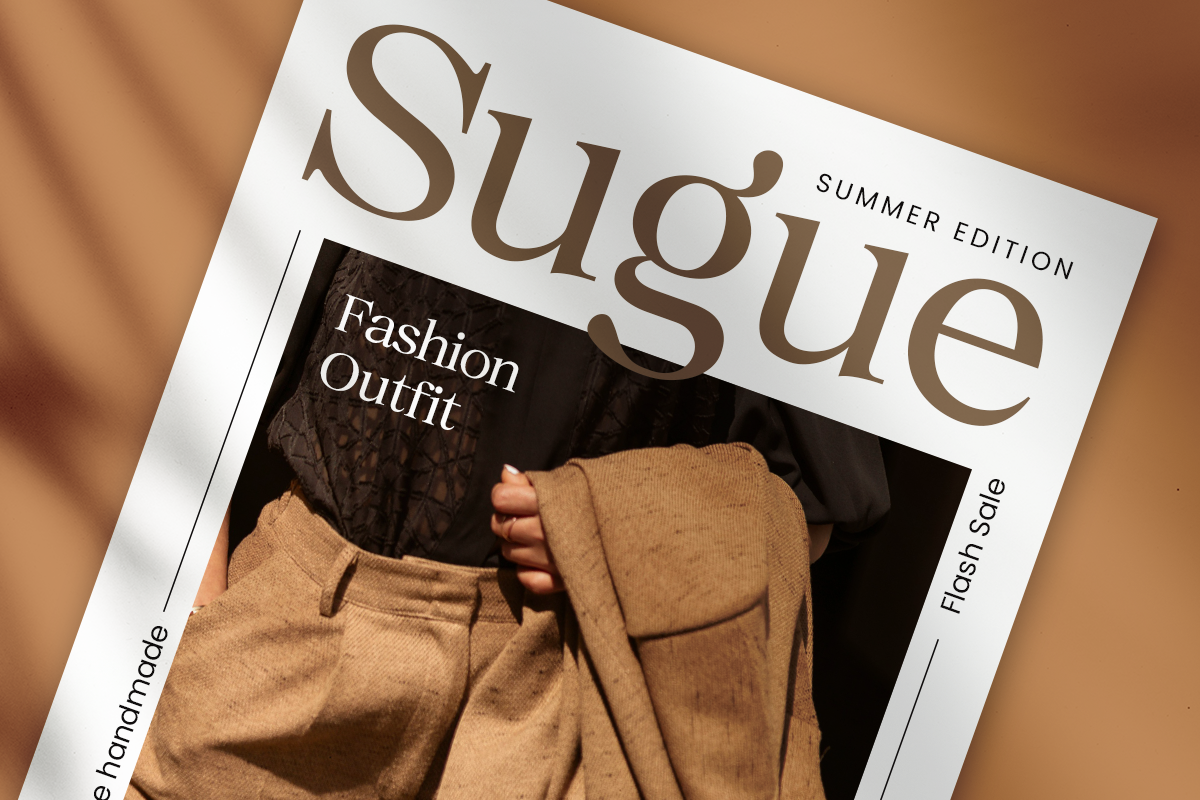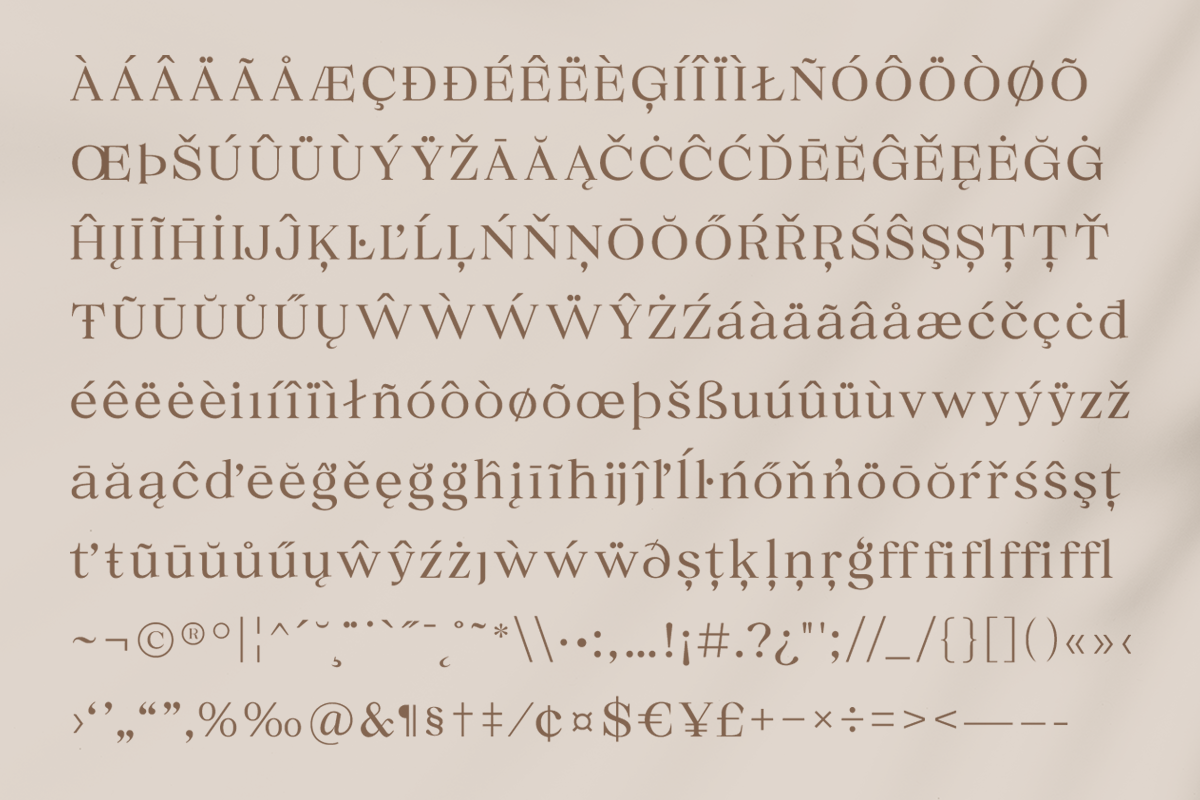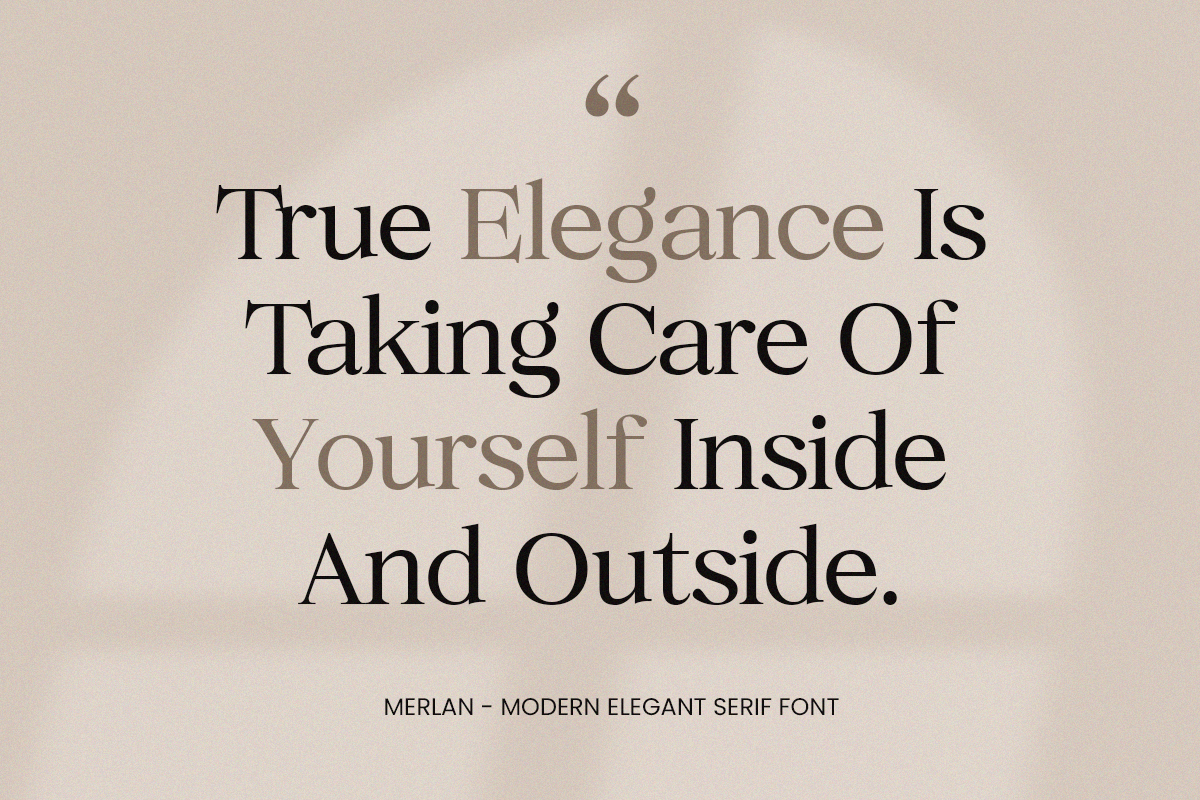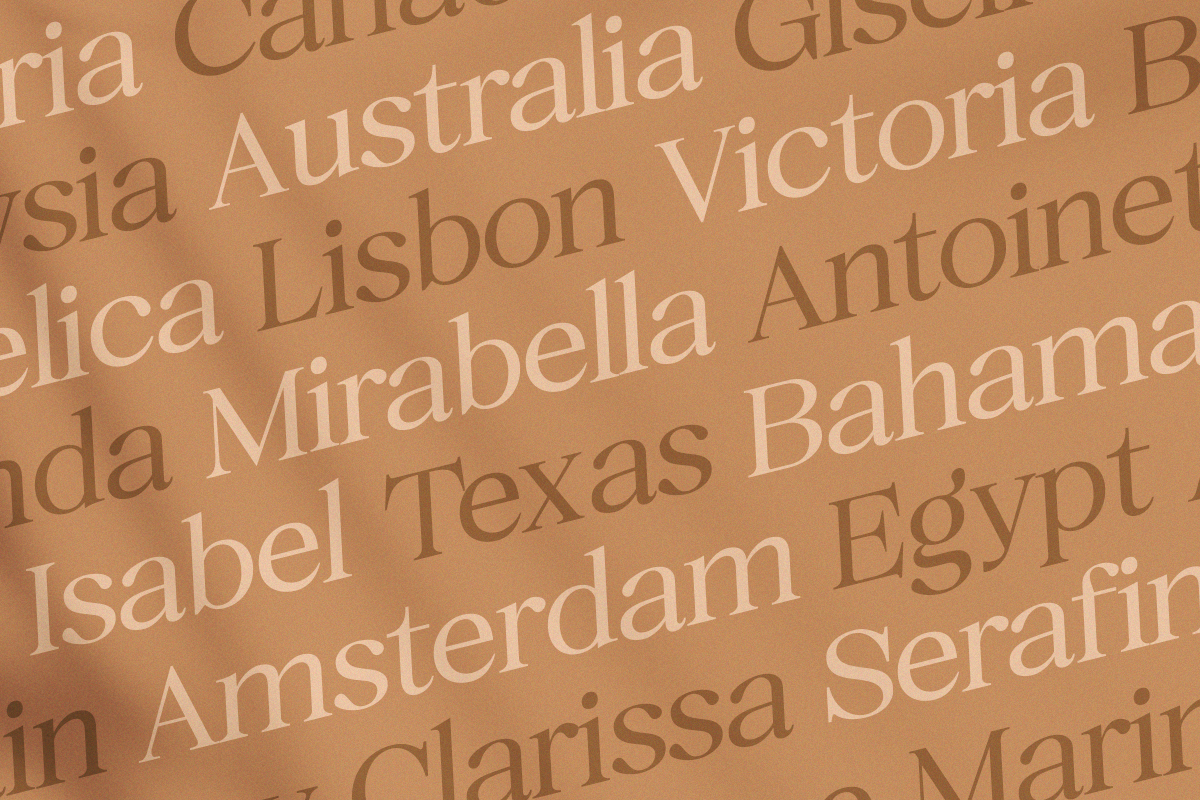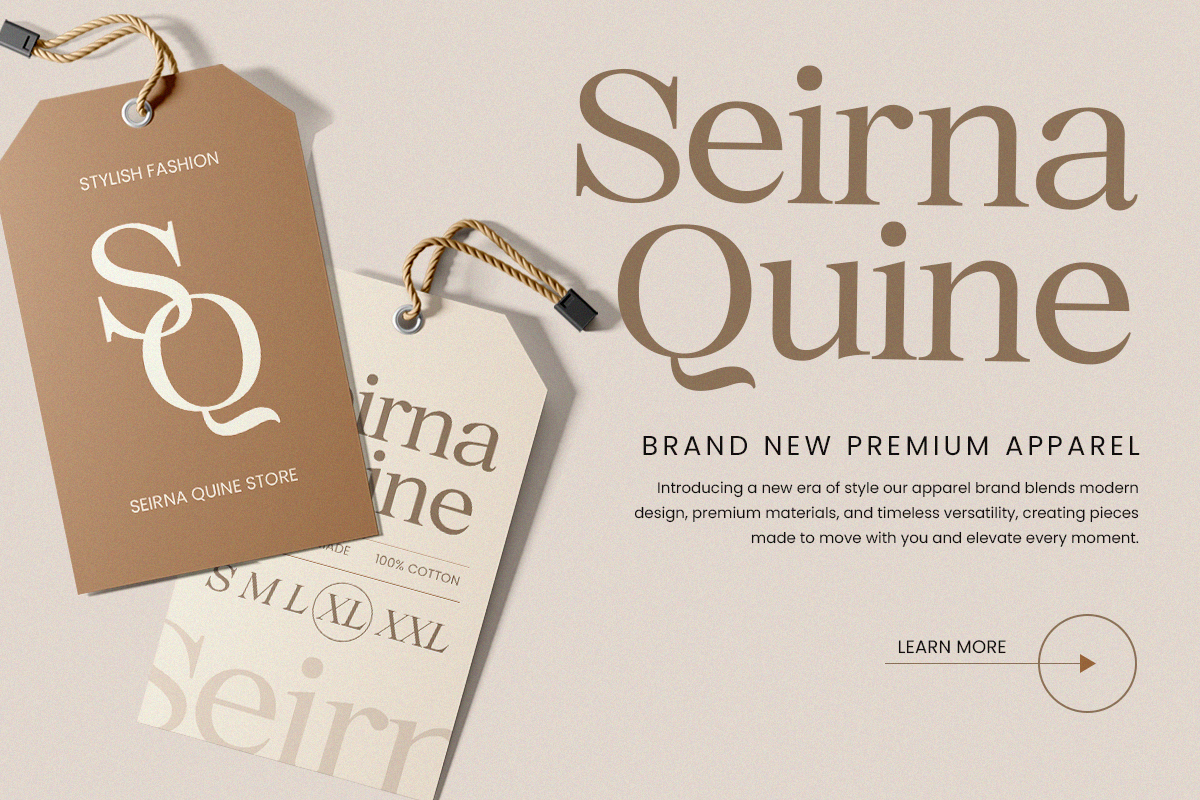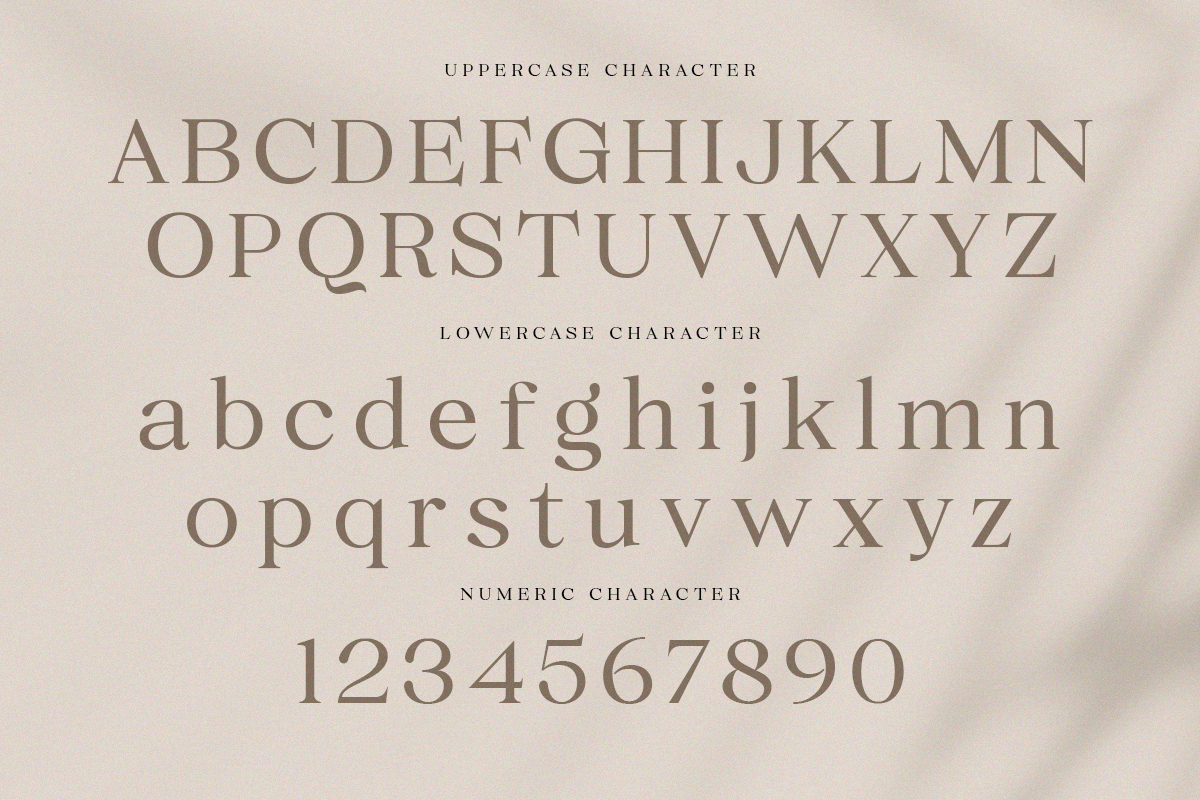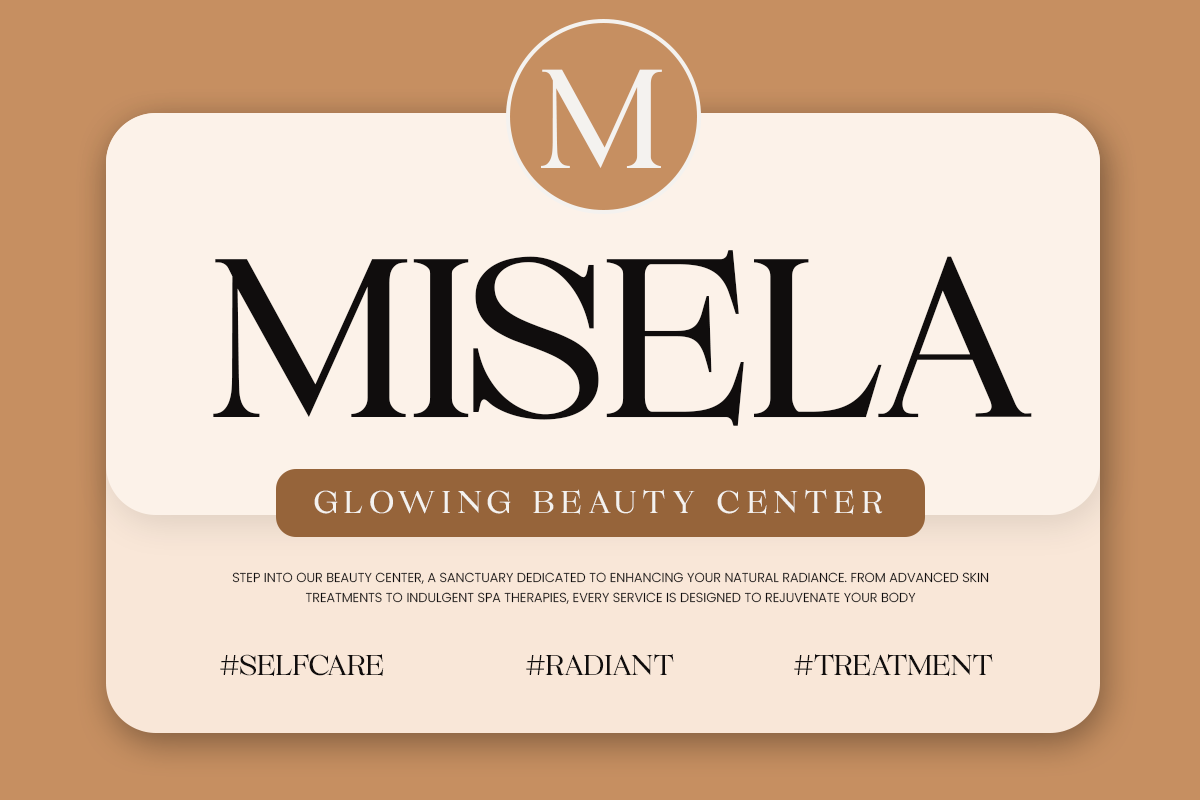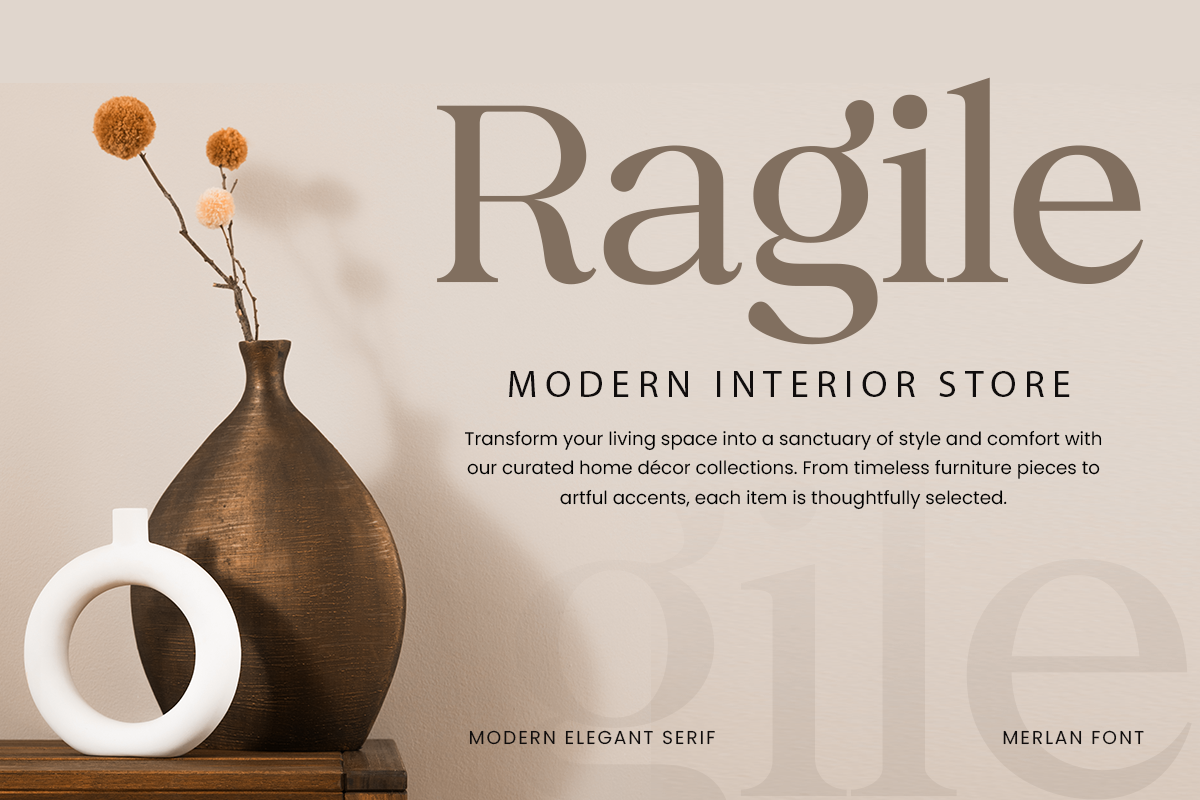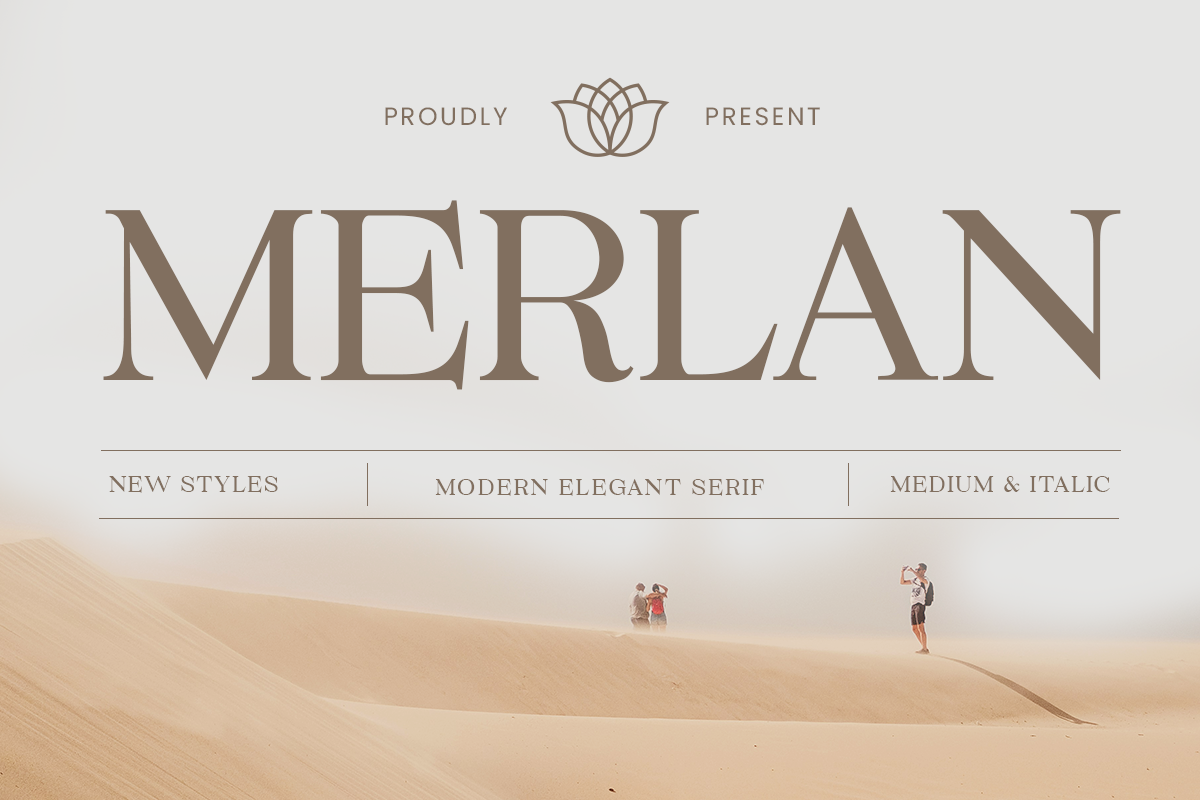
Merlan - Modern Serif Font
Merlan Modern Serif is a refined Modern Bold typeface that combines timeless elegance with modern sophistication. Designed with strong, confident letterforms and subtle details, Merlan brings a high-class aesthetic to any creative project. The Regular style offers a clean and distinguished look, while the Italic style adds a graceful and stylish flair, making it versatile for both formal and expressive designs.
Perfect for modern branding, premium packaging, magazine headlines, wedding invitations, and high-end editorial layouts, Merlan Modern Serif delivers outstanding readability while maintaining a bold, distinctive presence. Its harmonious balance of sharp serifs and smooth curves makes it the ideal choice for projects that demand both elegance and impact.